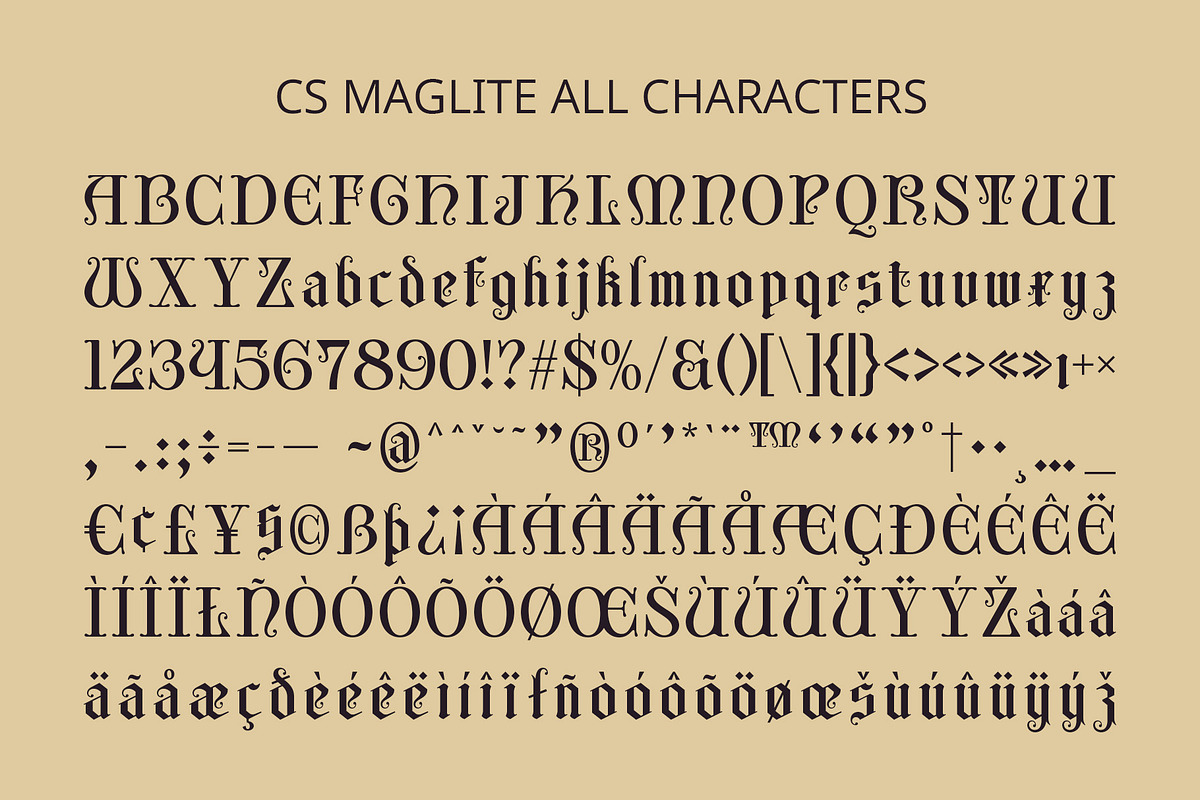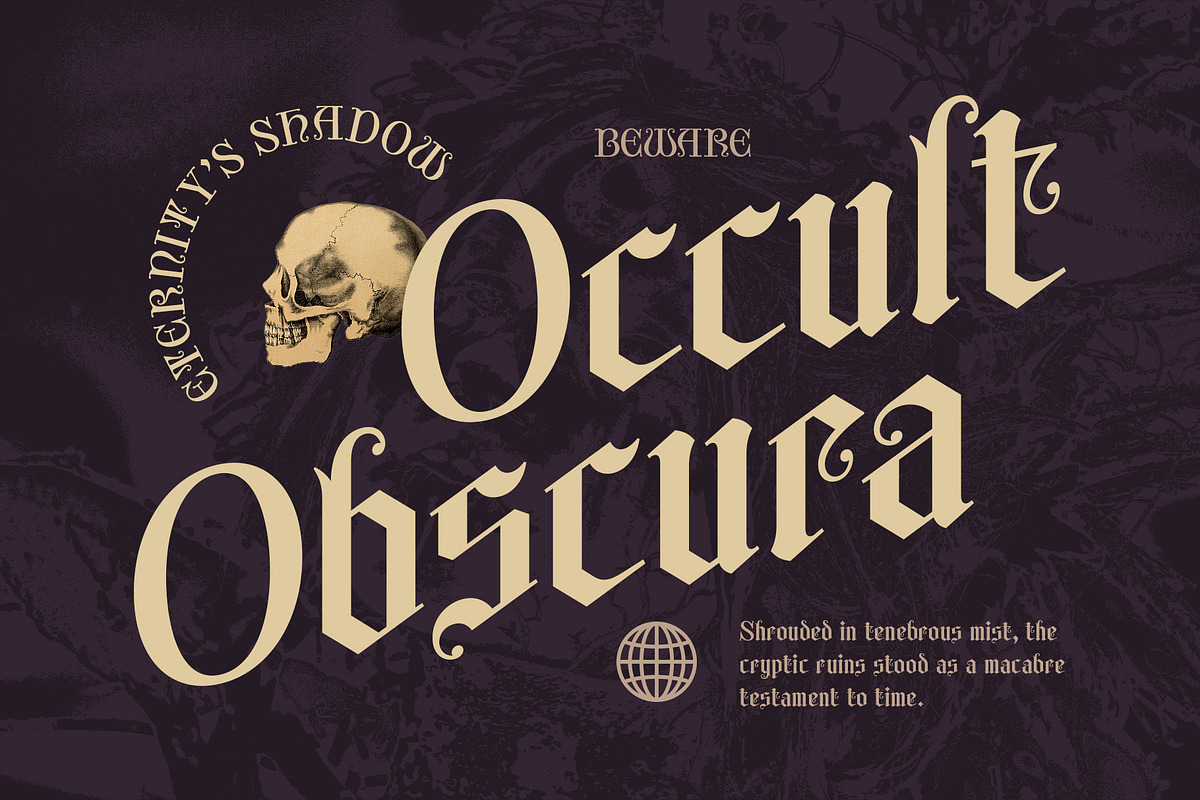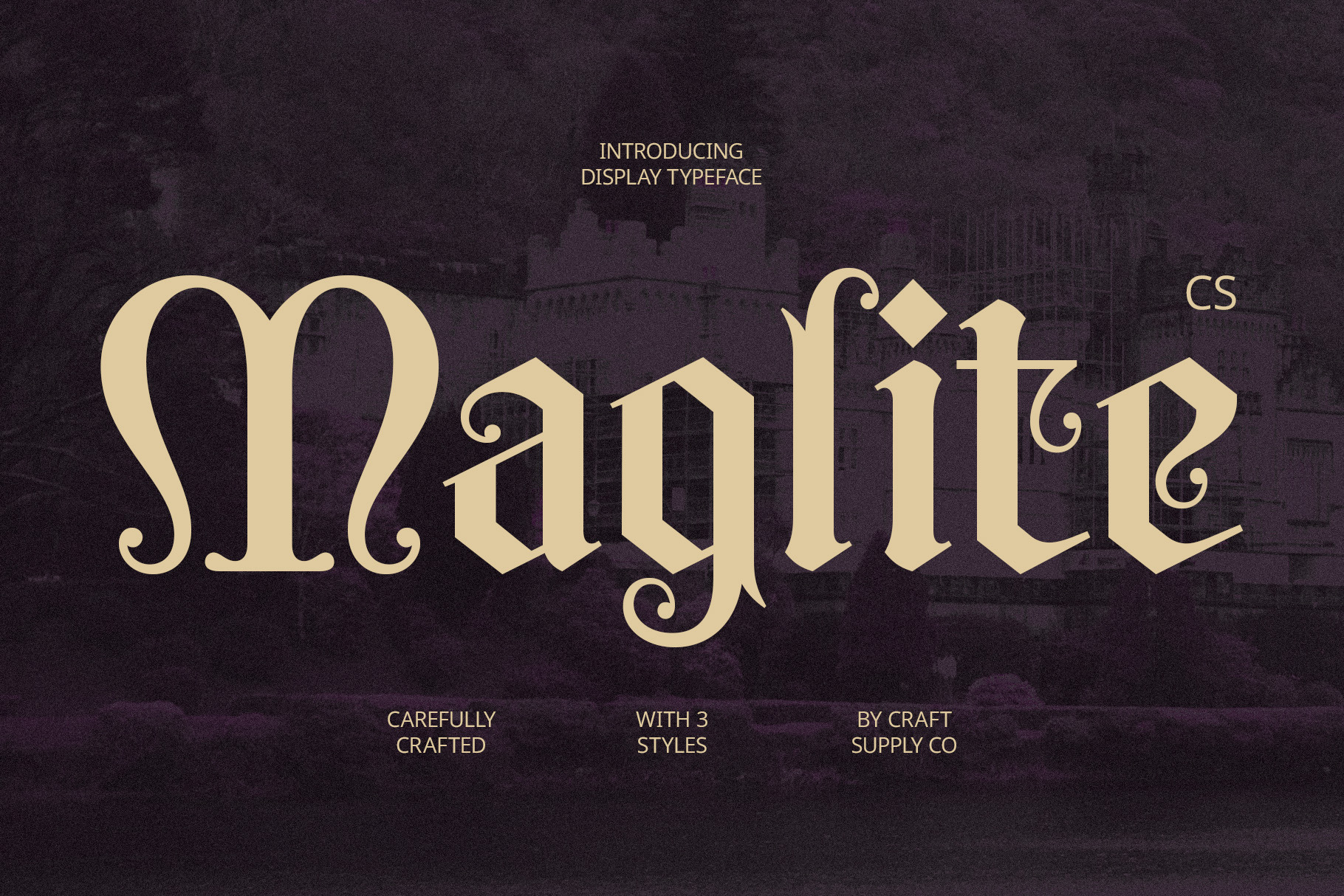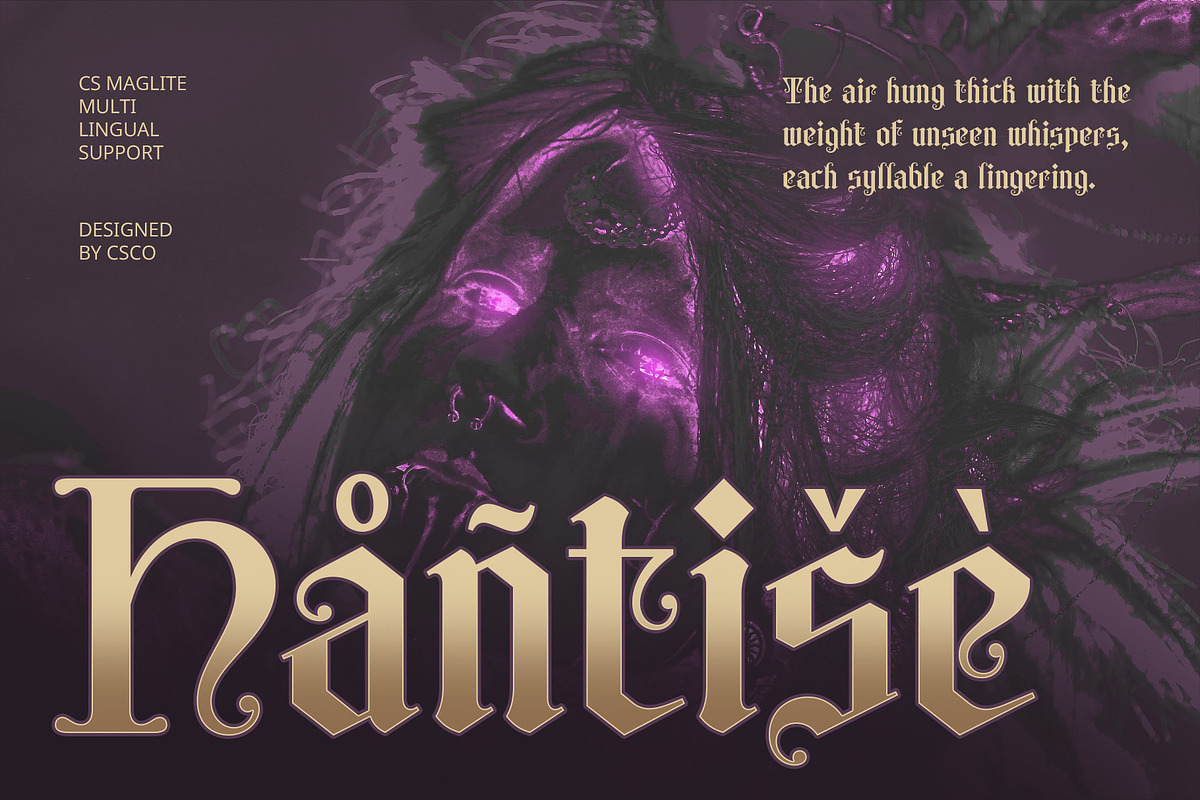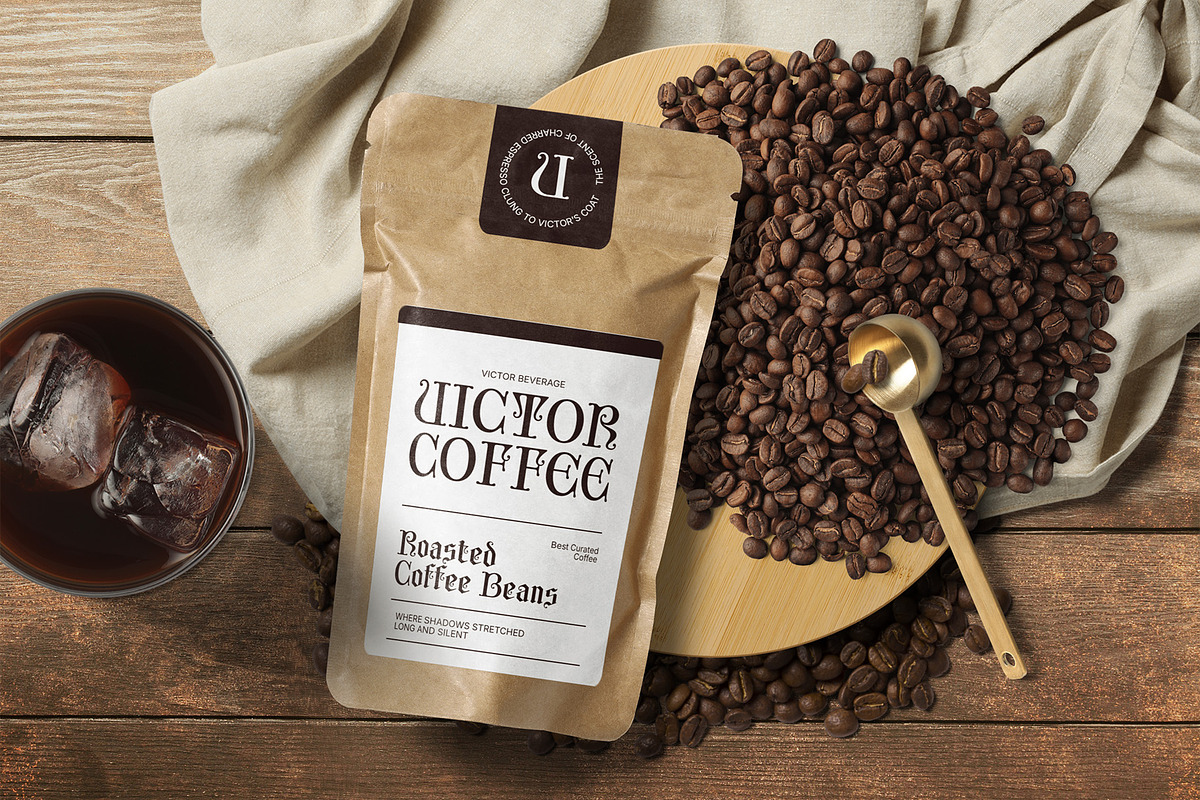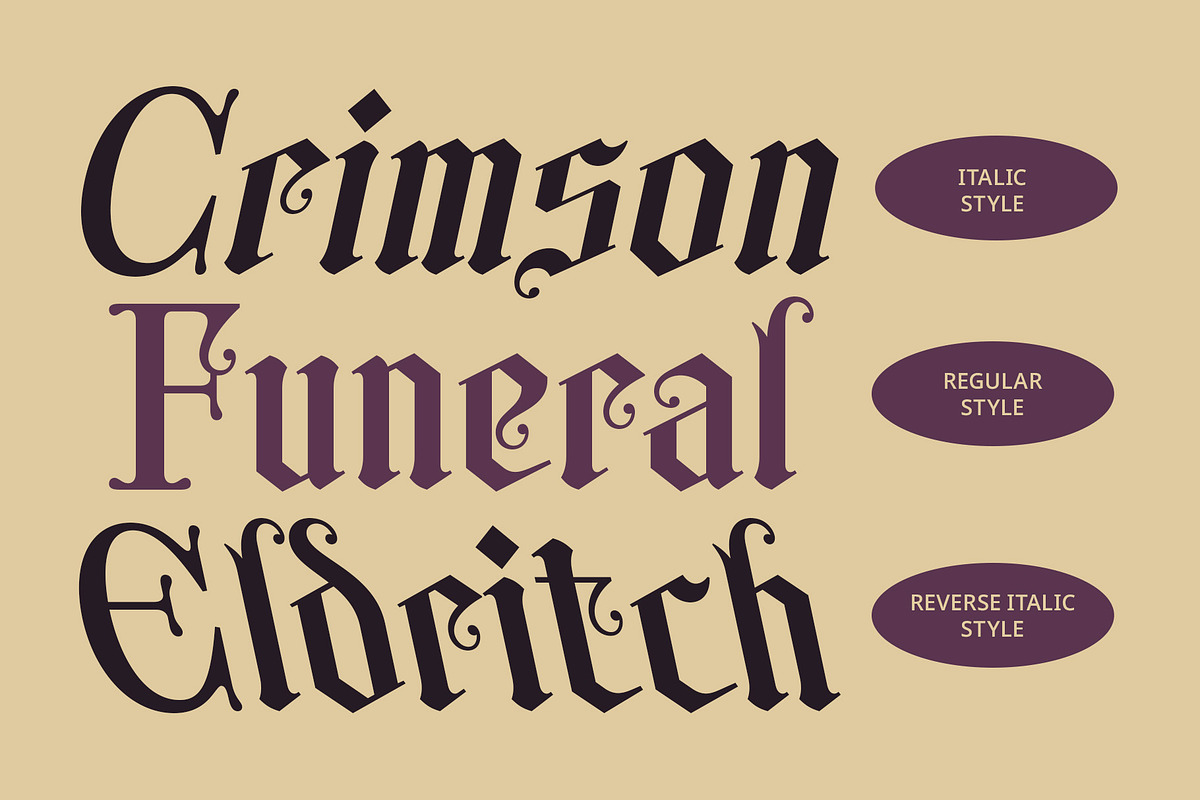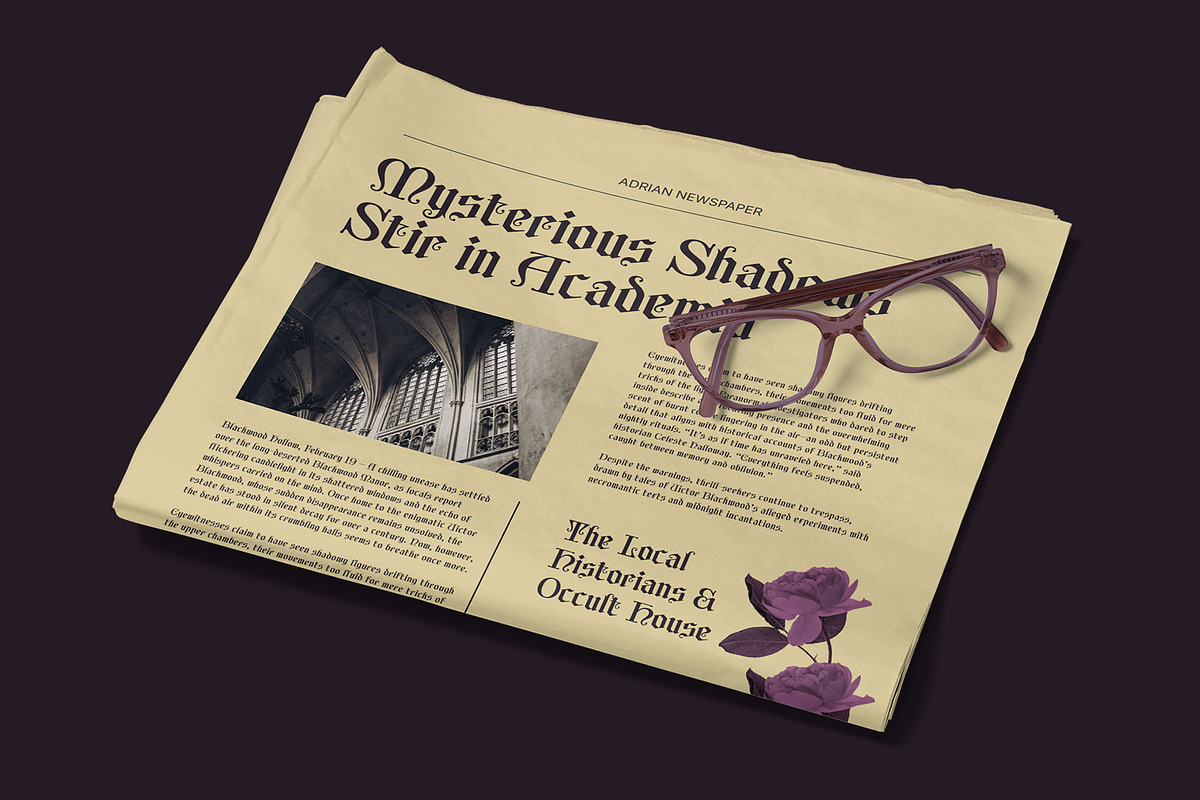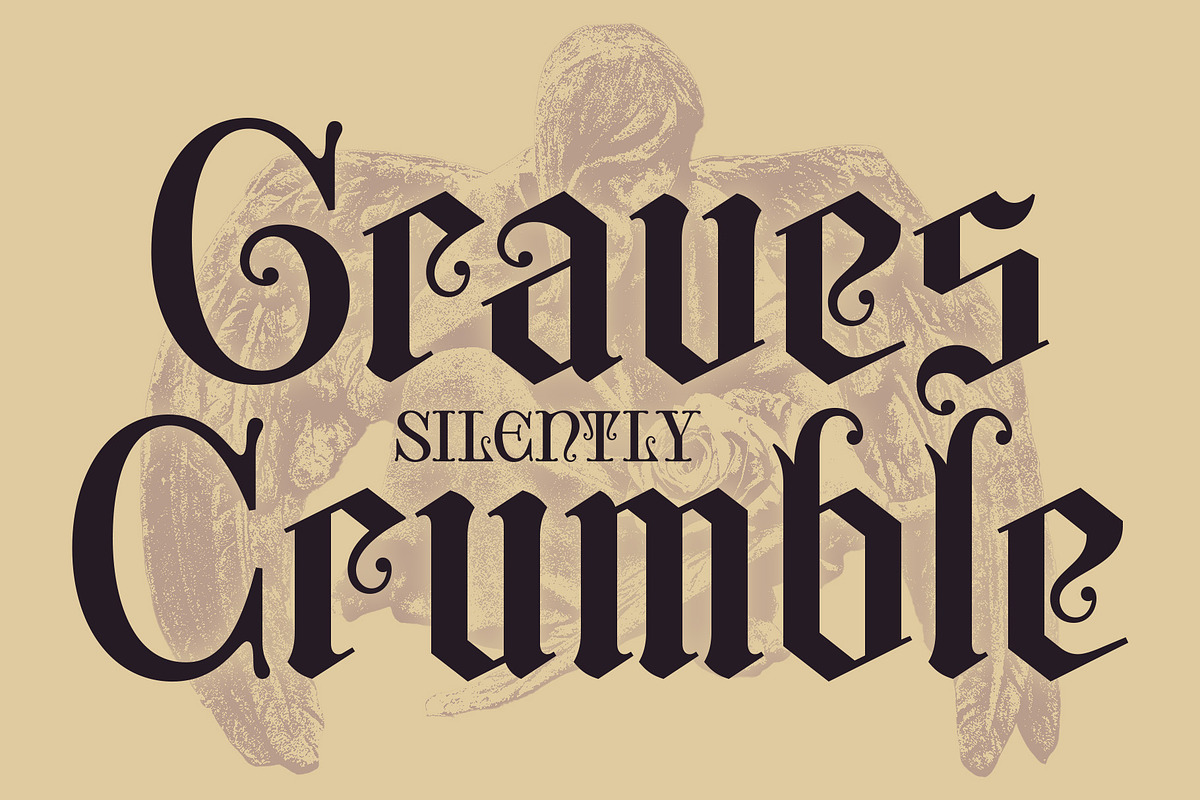
CS Maglite – Gothic Uncial Font
CS Maglite – Gothic Uncial Font: A Fusion of History and Mystery
Blending Uncial Softness with Gothic Strength CS Maglite – Gothic Uncial Display Font masterfully combines the rounded elegance of uncial script with the bold, striking presence of gothic typography. Its unique letterforms feature smooth, curved strokes while retaining a structured, commanding appearance, creating a typeface that feels both ancient and powerful.
Evoking Antiquity and Mysticism With its rich historical influence, CS Maglite carries an aura of medieval craftsmanship and legendary mysticism. The balance between flowing uncial shapes and sharp gothic edges makes it perfect for projects that demand a sense of depth, tradition, and timeless grandeur.
Ideal for Medieval and Fantasy-Themed Designs CS Maglite thrives in fantasy book covers, medieval-inspired branding, and grand editorial layouts. Whether used in historical storytelling, role-playing game titles, or thematic event designs, this font enhances the visual narrative with its classic yet dramatic appeal.
A Classic Typeface with Grand and Authoritative Presence Designed to command attention, CS Maglite is a perfect choice for logos, banners, and artistic compositions that need a strong yet elegant typeface. Its fusion of uncial and gothic elements makes it an ideal font for projects that celebrate history, fantasy, and the enduring power of classic design.